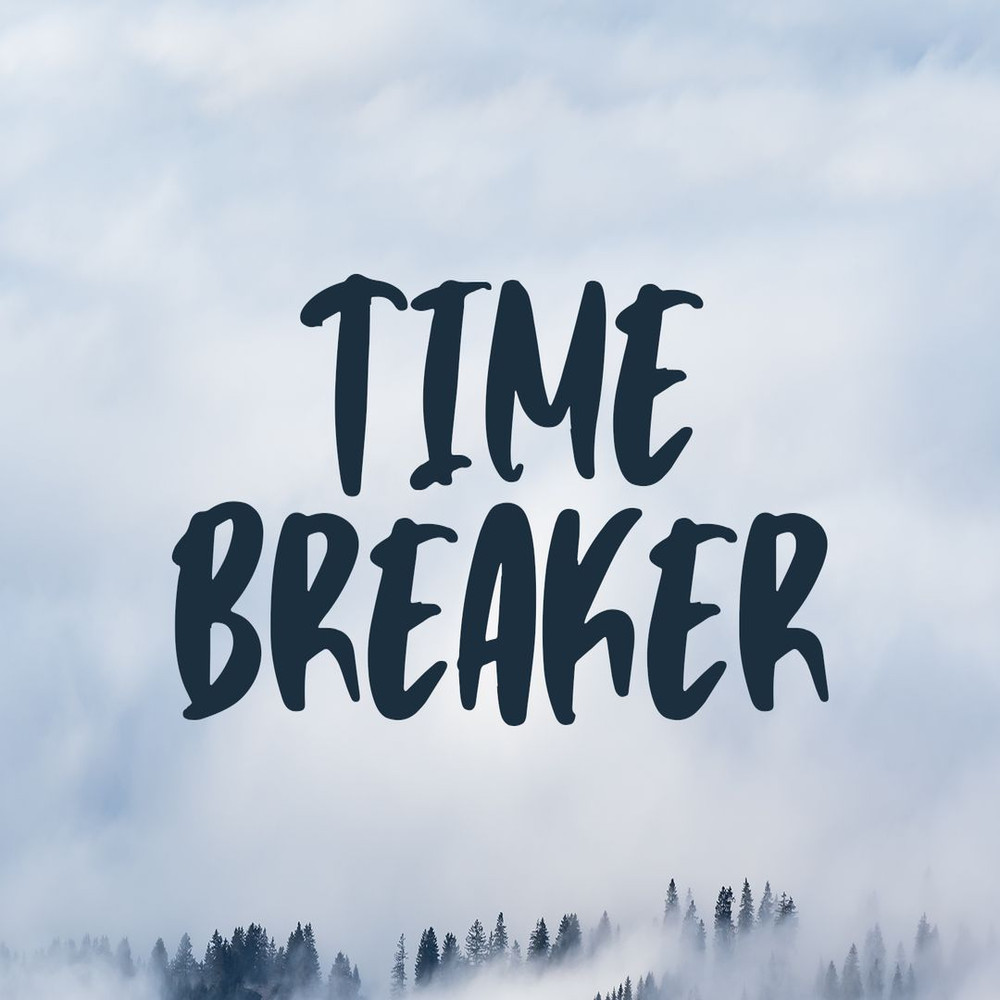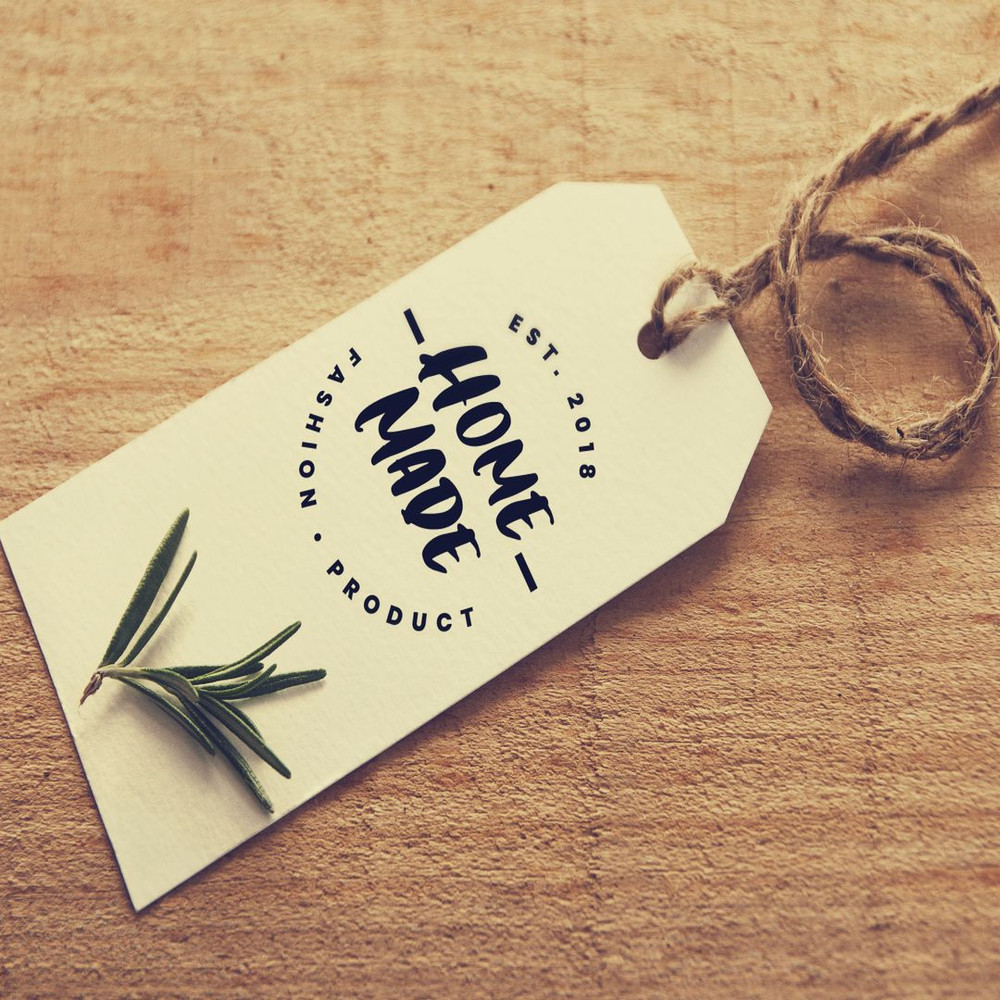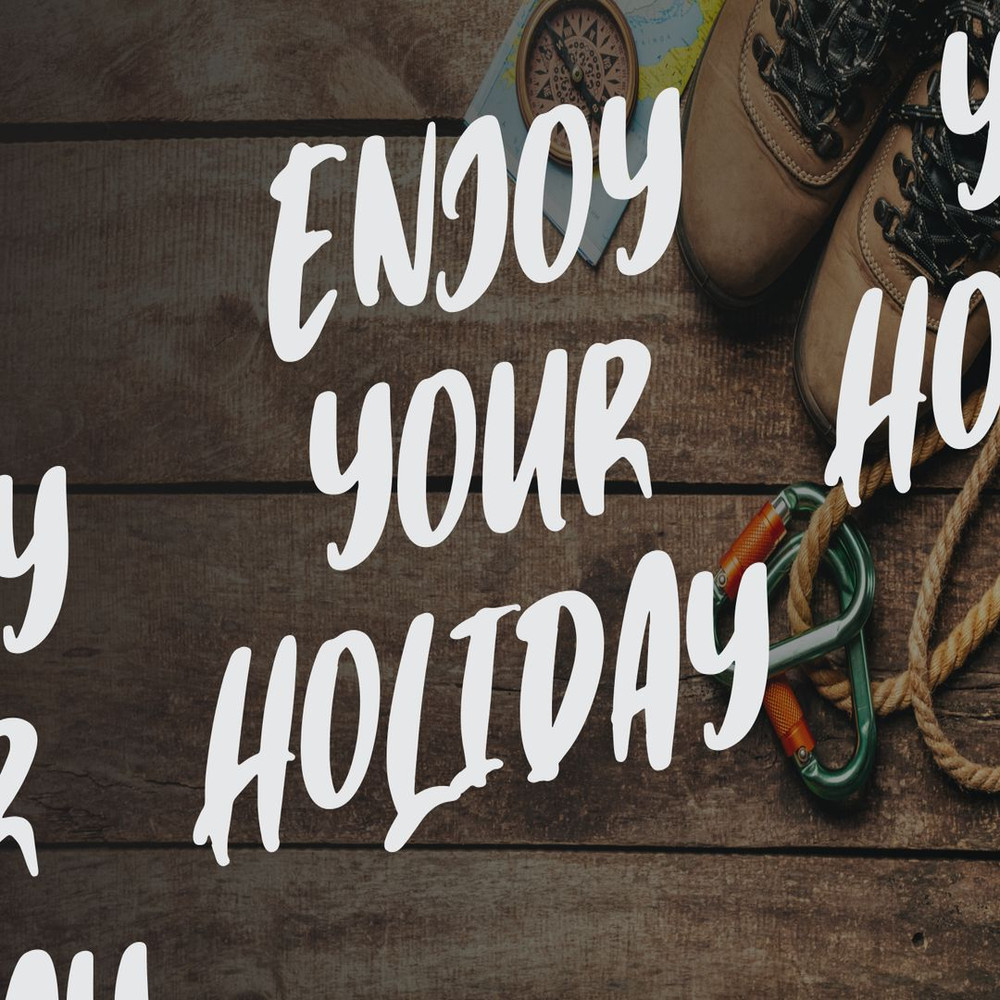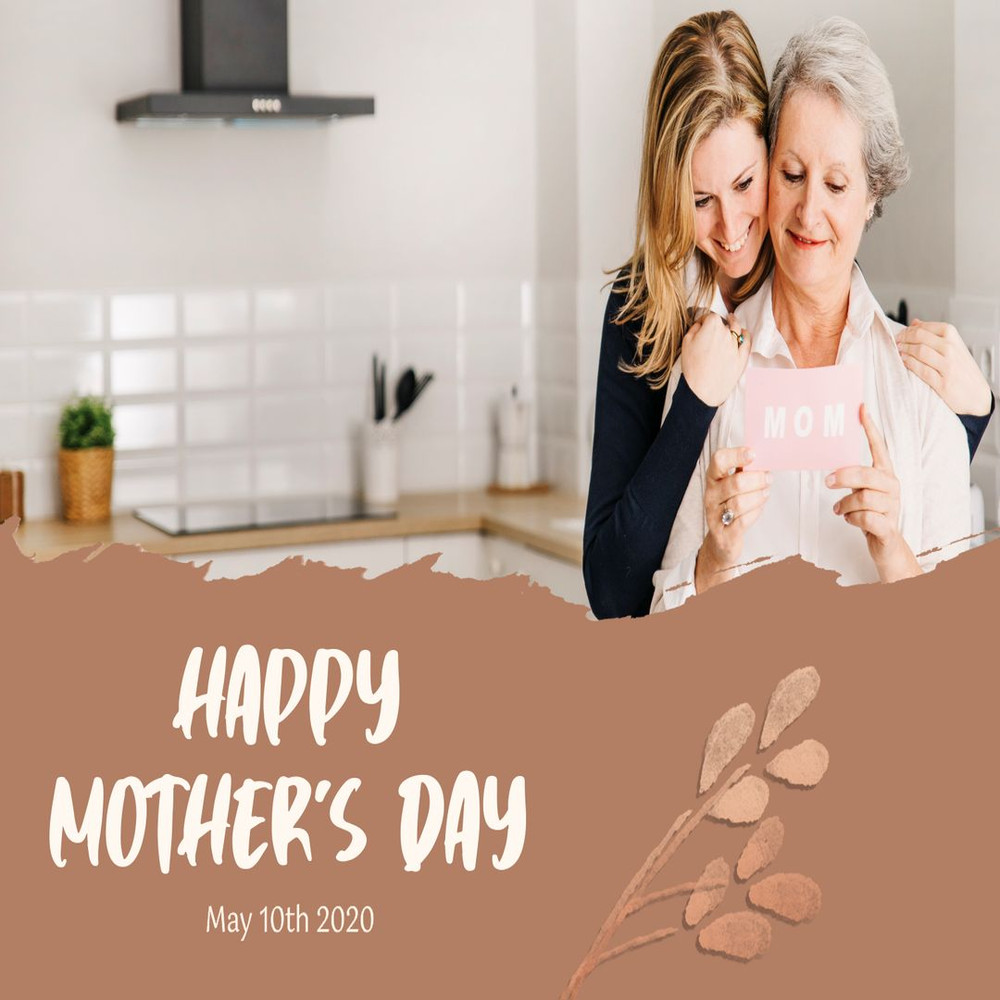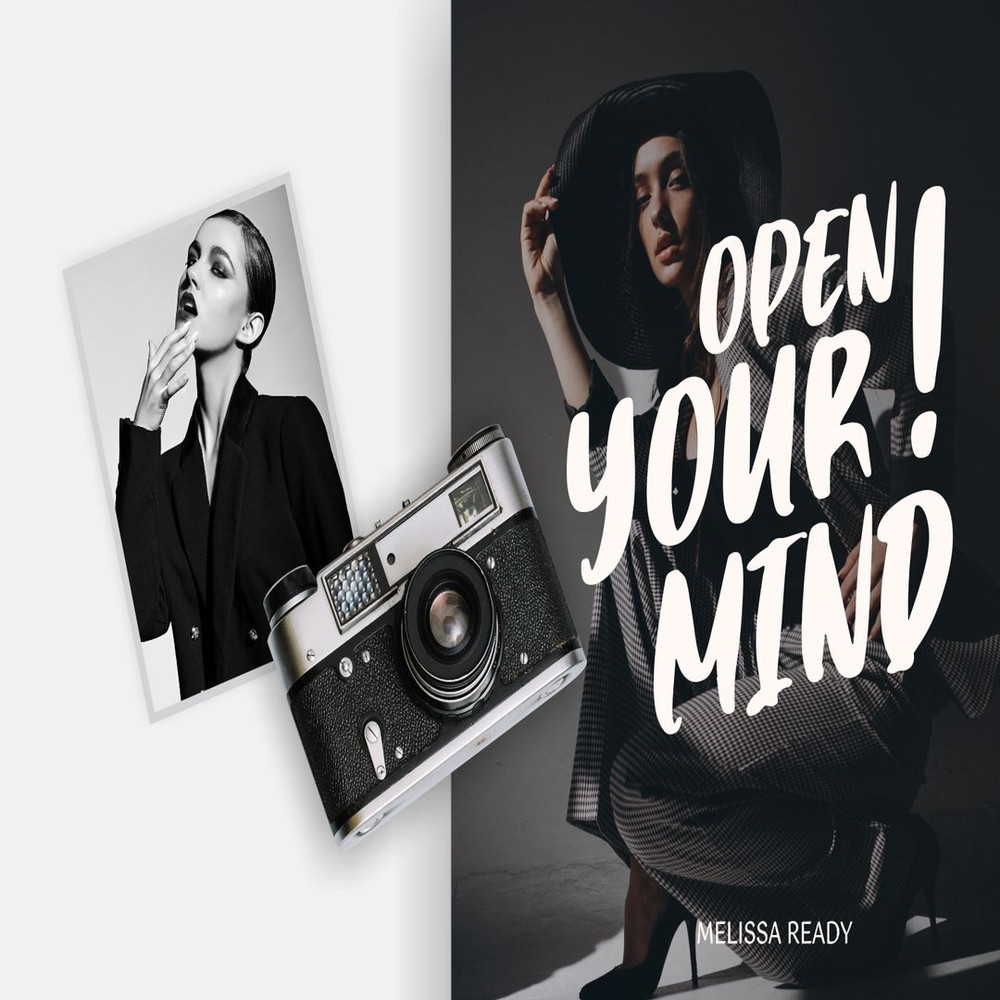
Time Breaker – Bold Matte Brush Trending Fonts - Digital Font
Time Breaker, a bold caps typeface crafted from a classic brush with stylish and casual gesture. It’s great for branding, logo, headline, poster, title, etc. This font contains all caps characters, numeral, large range of punctuation, and also multilingual support.
Time Breaker – Bold Matte Brush Trending Fonts - Digital Font
Time Breaker, a bold caps typeface crafted from a classic brush with stylish and casual gesture. It’s great for branding, logo, headline, poster, title, etc. This font contains all caps characters, numeral, large range of punctuation, and also multilingual support.